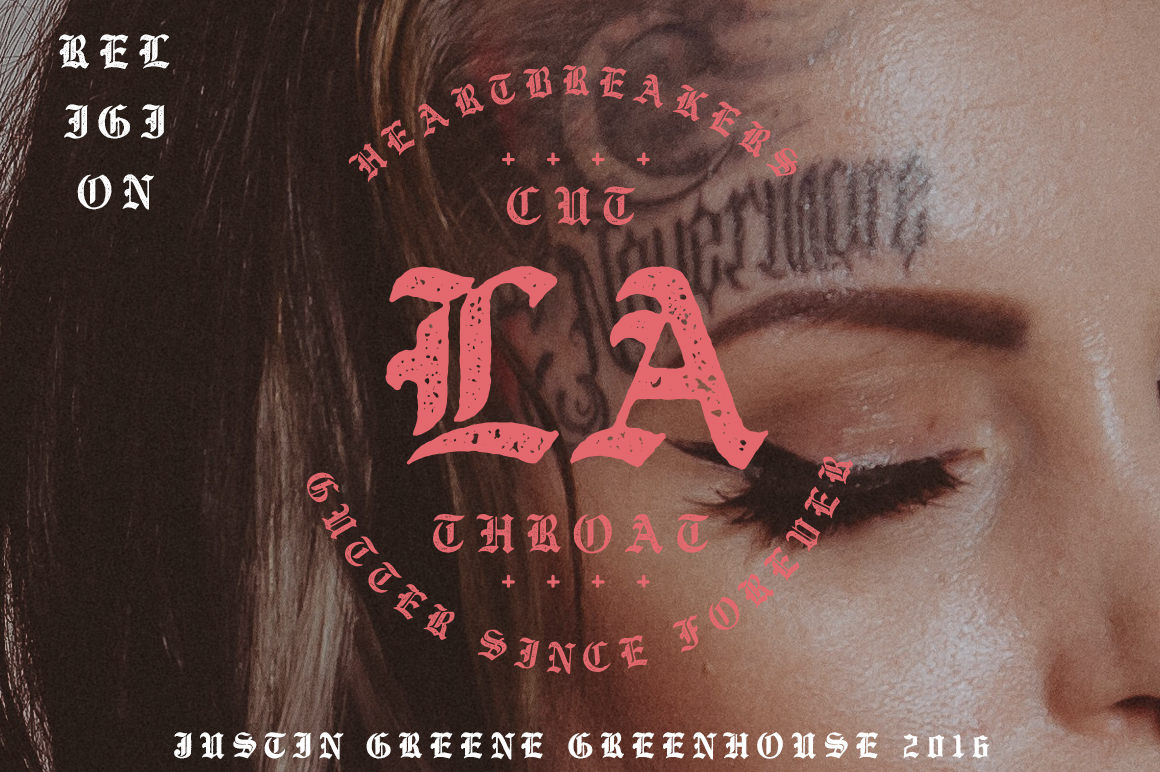
RELIGION ~ Hand Drawn Font
RELIGION is a new hand drawn display typeface, available from Greenhouse Supply Co. by Justin Greene.
Great for Logos, Stationary, Posters, Apparel, literally everything design related. Perfect for that Vintage signage & hand drawn inspired feel.
As with anything made by Greenhouse, expect only the best, from the kerning to the alternates, down to the smallest details. The alternate uppercase characters are perfectly kerned for your use. Made for designers, by designers.